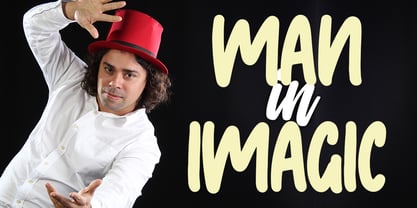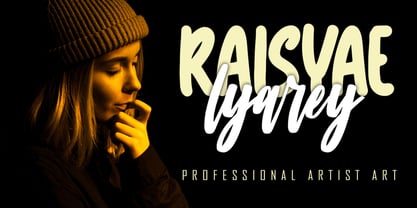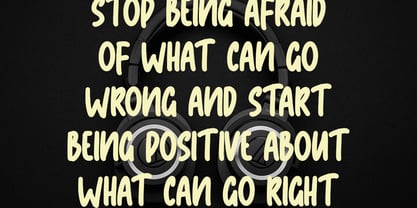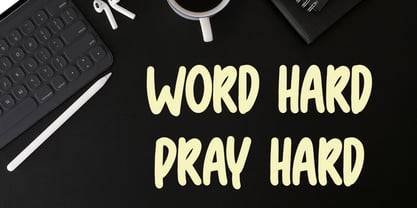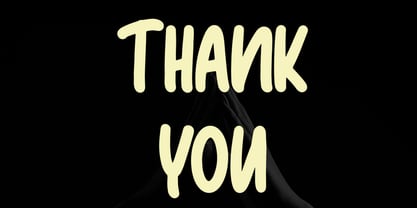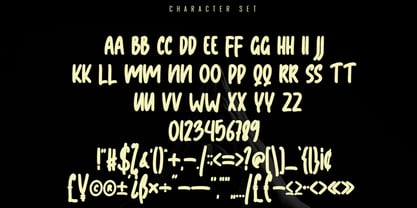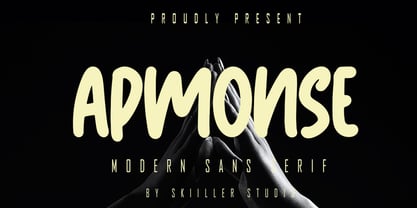
Apmonse
by Skiiller Studio
The Apmonse Font Family was designed by Irfan Mahmudin and published by Skiiller Studio. Apmonse contains 1 styles.
Apmonse is a modern sans-serif font that combines a playful handwritten touch with smooth rounded shapes and bold curves, creating a friendly yet contemporary aesthetic. Its clean appearance, paired with soft, organic forms, makes it ideal for a variety of applications, including branding, posters, social media graphics, product packaging, logos, and creative headlines. Apmonse strikes a unique balance between modern simplicity and expressive personality, making it an excellent choice for designers in search of a fresh, standout typeface that enhances visual communication and engages audiences effectively.